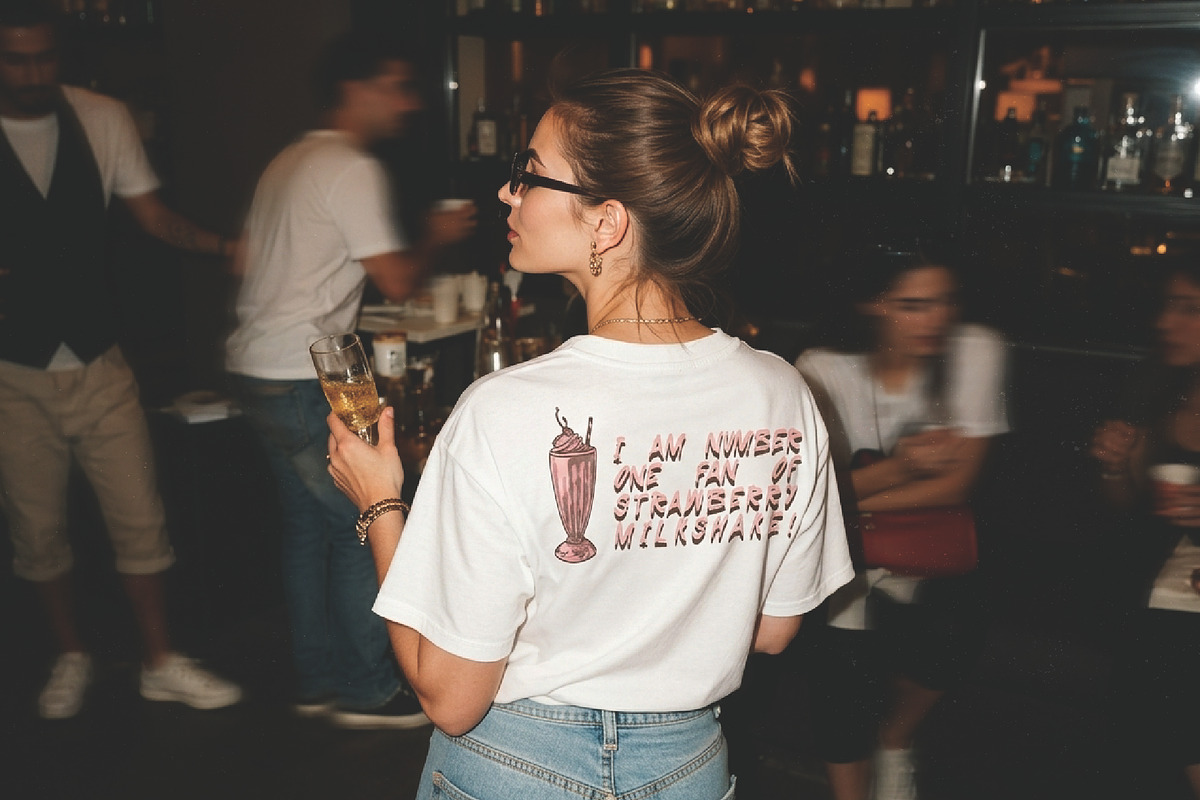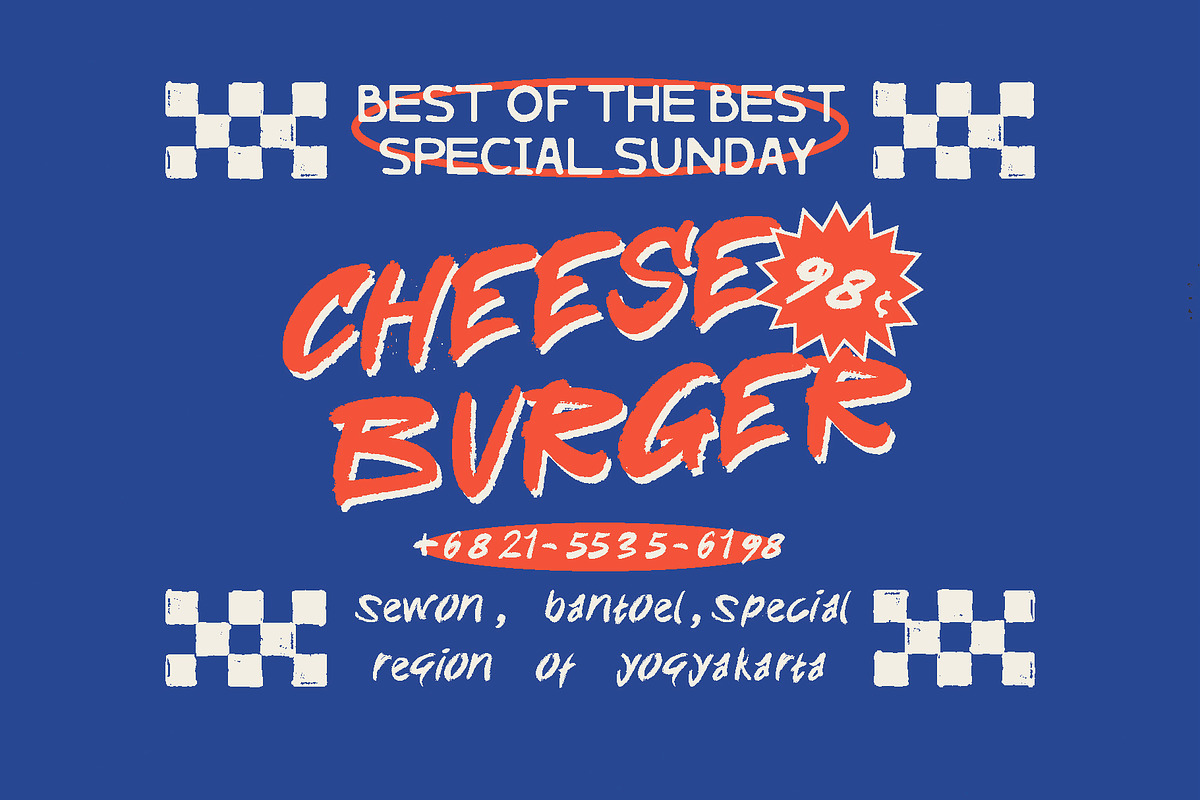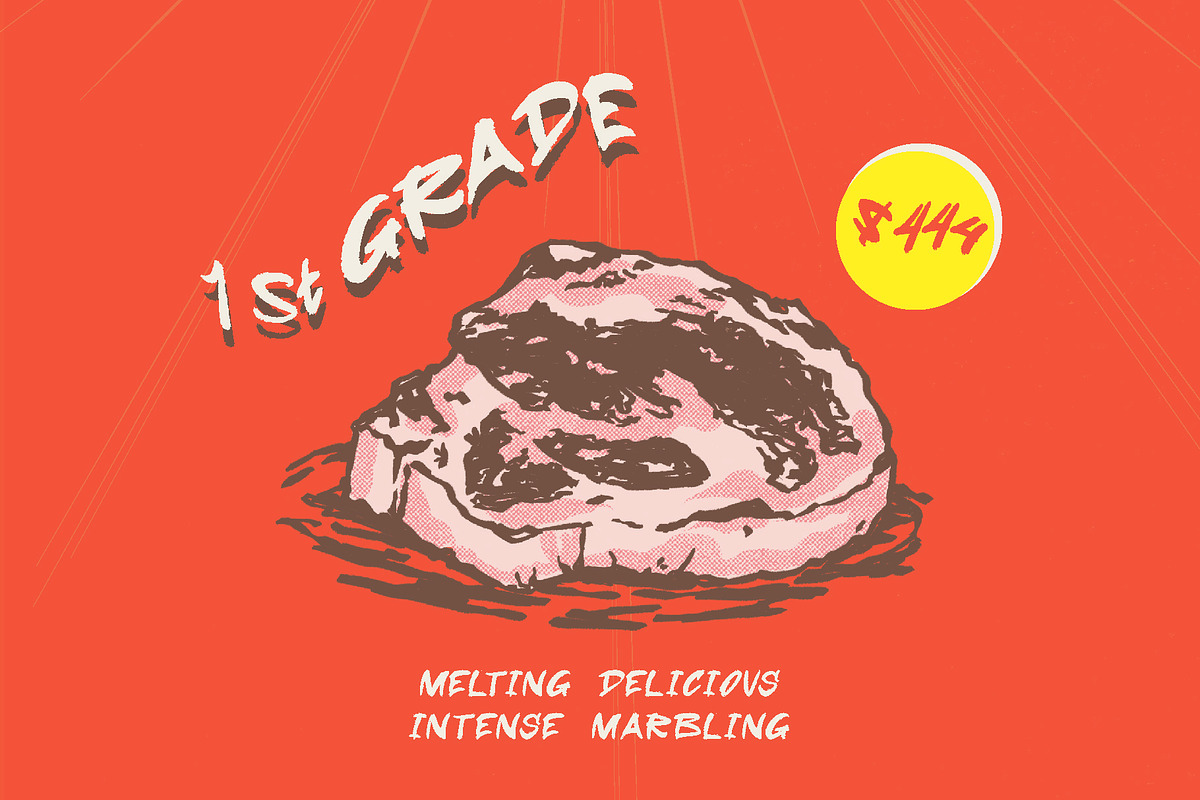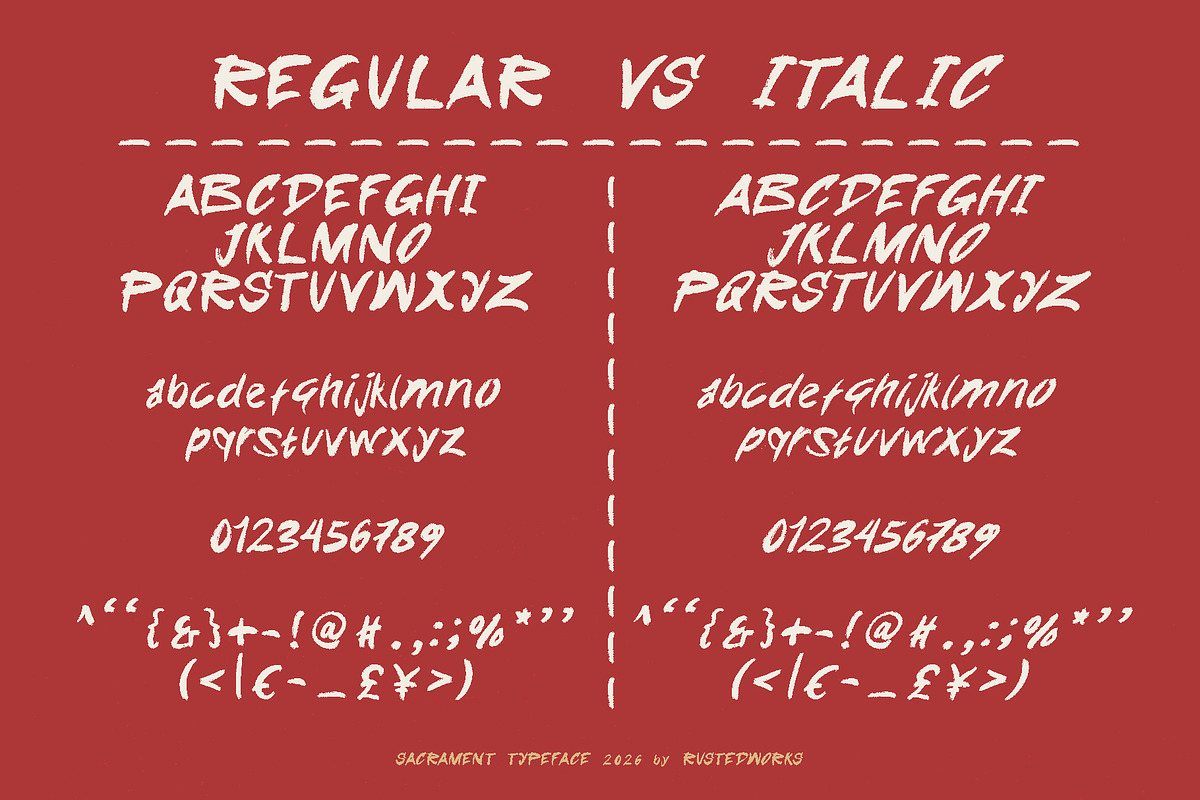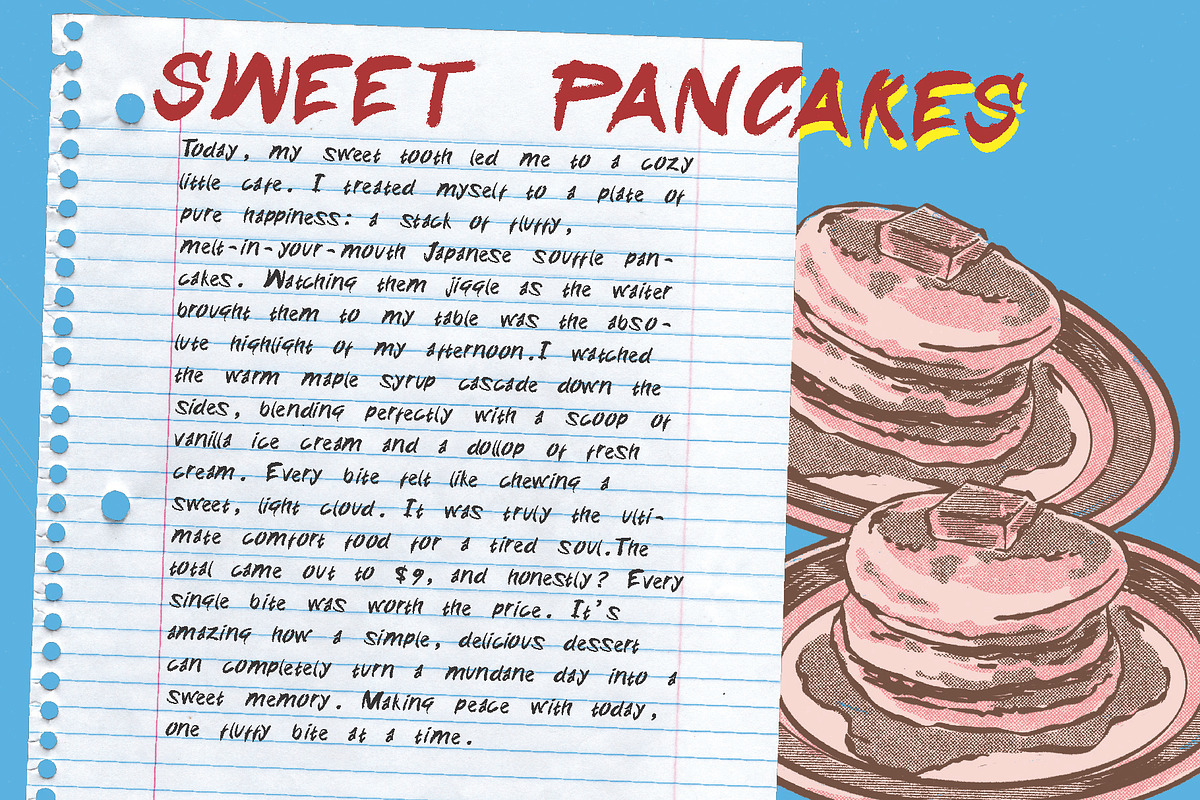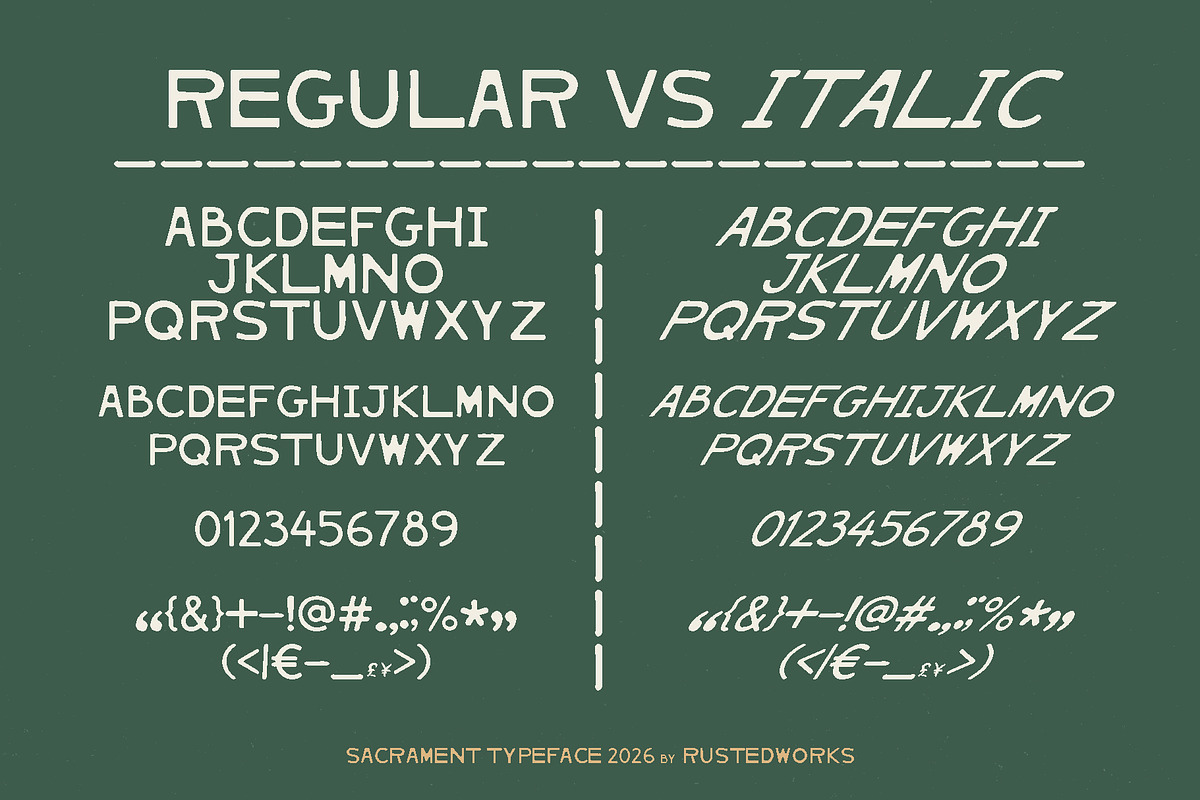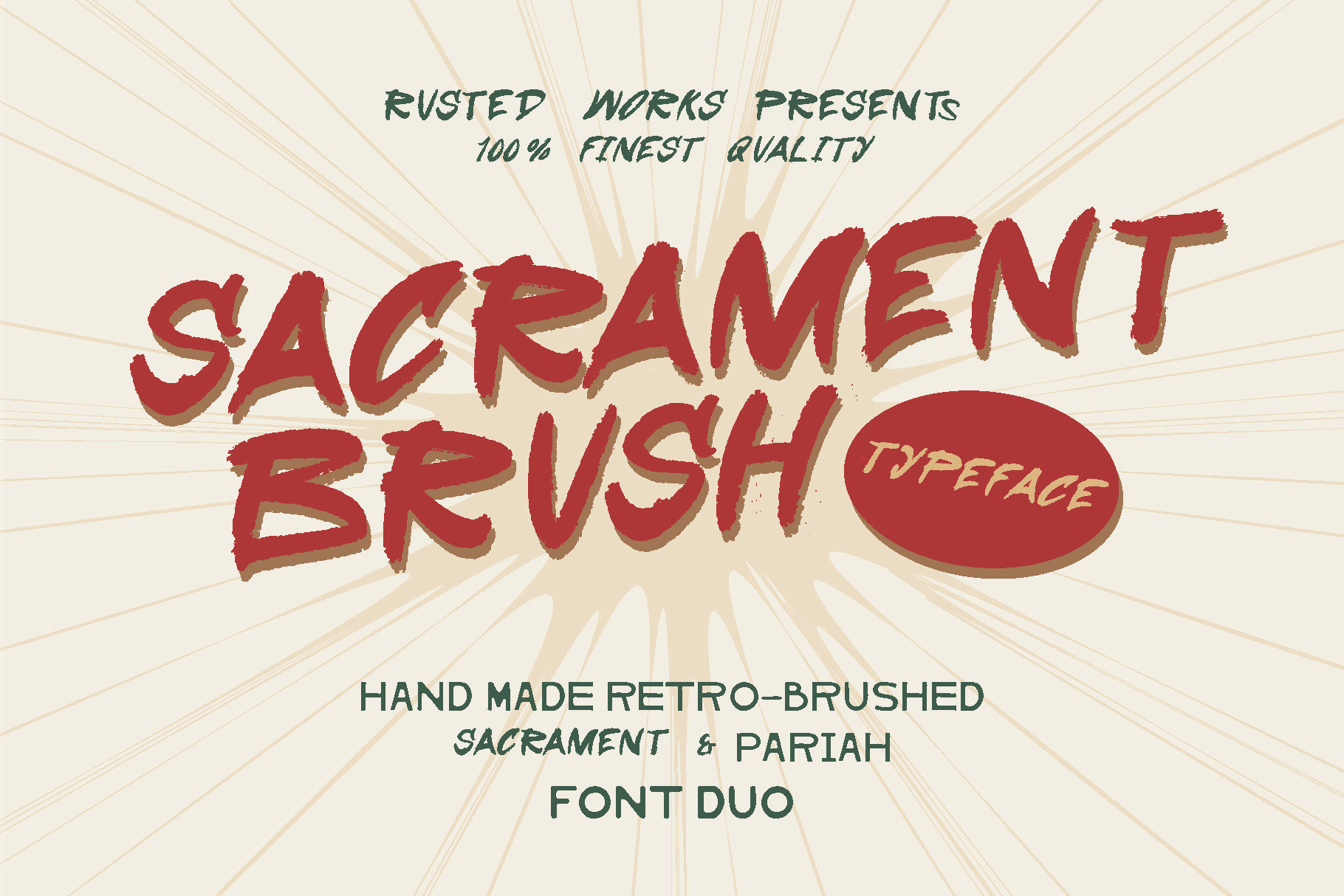
Sacrament Brush Font Duo
Sacrament Brush Font Duo is organic brush font + Serif Display font Inspired by organic pop-retro nostalgic vibes with a lil influence of pop cultures that make this font timeless.
This font fit perfectly for luxury, vintage, retro food branding, posters and apparel design.